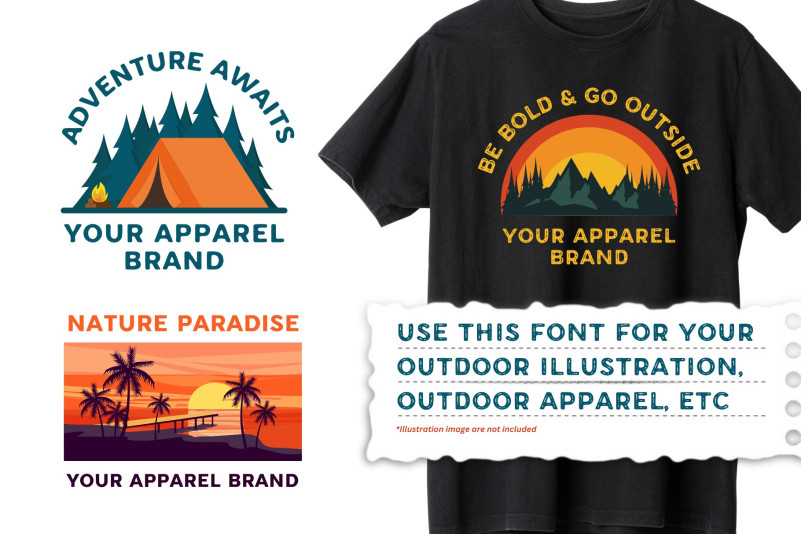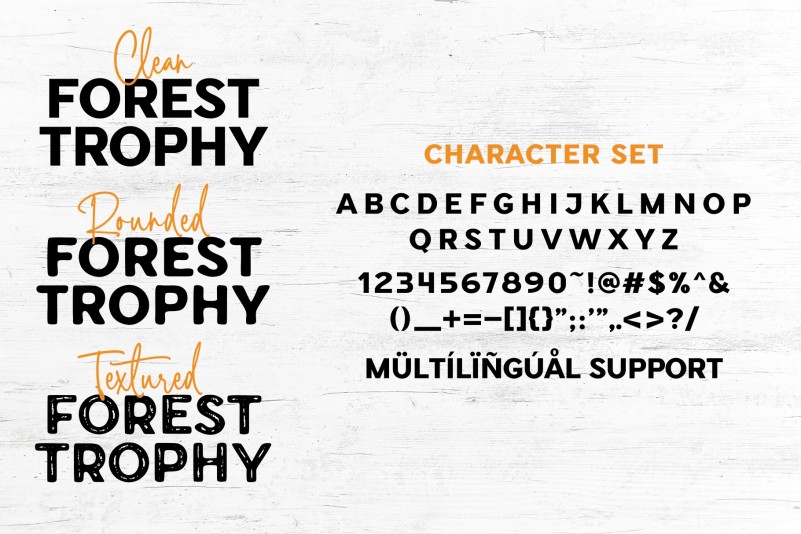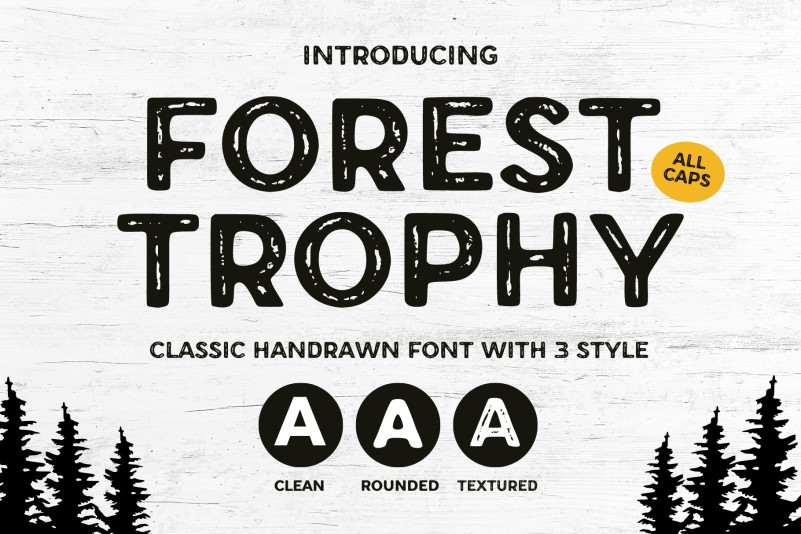
Forest Trophy Font
Forest Trophy Display Font is a vintage display font manufactured by Sronstudio. Comes in regular and rough styles which are perfect for your next project. Classic Display Font comes with a rough texture that gives a natural and vintage impression, suitable for the needs of outdoor apparel, merchandise, event posters, movies, etc.